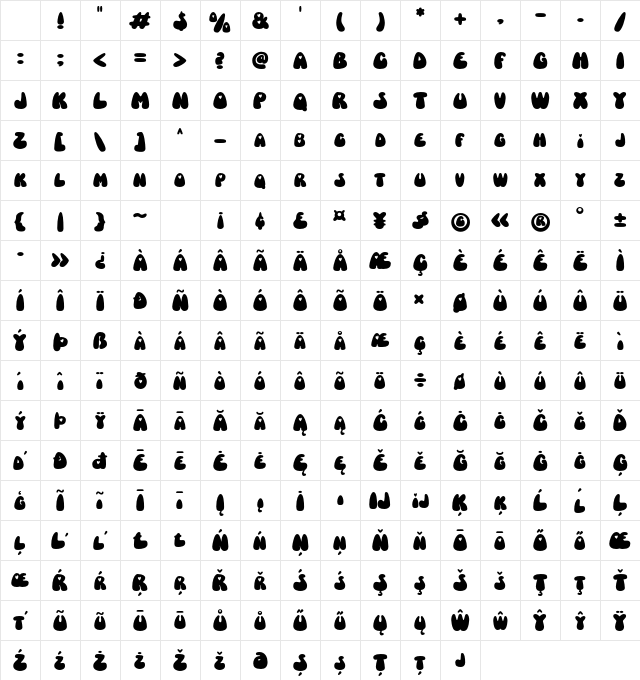
Complete Love Bold - Demo Version Regular glyph index. Displaying only characters natively supported by Love Bold - Demo Version Regular font.
Love Bold - Demo Version is a composed and adaptable typeface that performs quietly and consistently across a wide range of design contexts. Its bold stroke weight gives it real presence on the page.